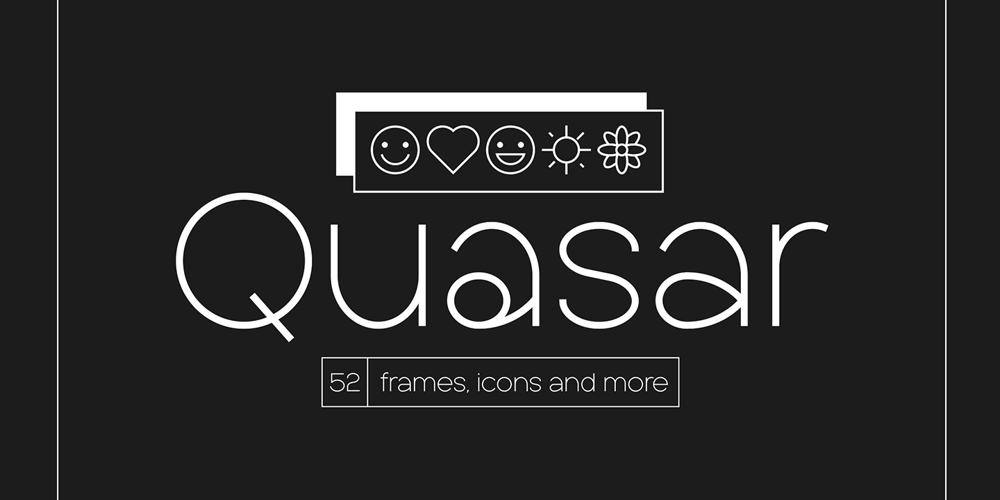
Quasar
Quasar font
Quasar Font Family was designed by Vladimir Fedotov, Plamen Petrov and published by VP Creative Shop. Quasar contains 13 styles and family package options. Introducing the delightful Quasar sans serif font – a true gem in the world of typography! With its clean and modern design, Quasar brings a touch of elegance to any project. This font family consists of not one, but six distinct weights, offering you a versatile range of options to choose from. Whether you’re aiming for a bold and impactful statement or a more subtle and refined look, Quasar has you covered.